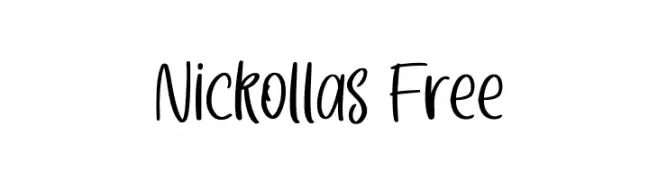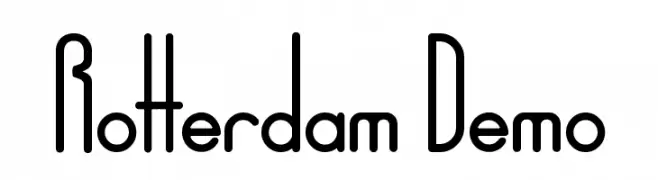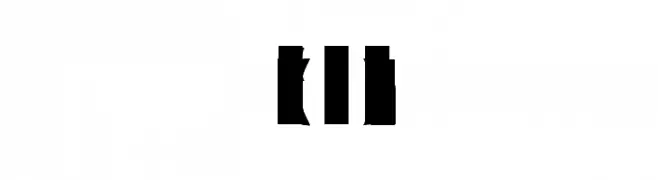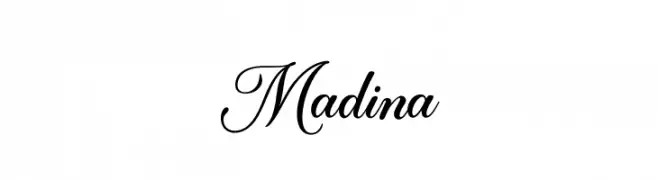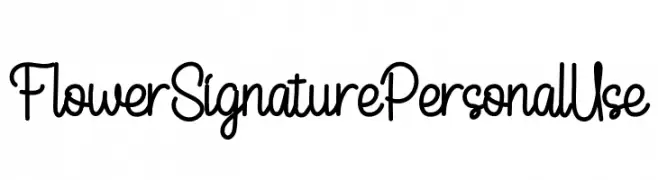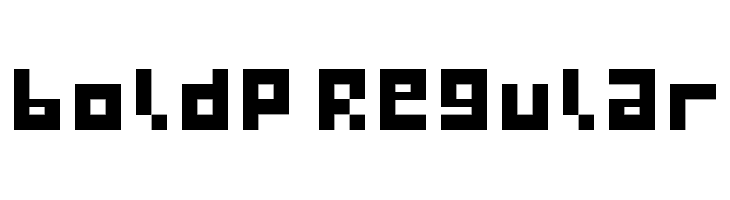
A playful, casual handwritten font with smooth, flowing lines.
A modern, geometric font with tall, narrow uppercase letters and balanced lowercase characters.
A futuristic, hollow font with a geometric and linear design.
A dot matrix style font with a modern, digital aesthetic.
A bold, geometric font with a modern and minimalistic design.
A sophisticated script font with elegant loops and swashes, perfect for decorative uses.
A bold, decorative font with intricate patterns and a three-dimensional effect.
A playful, elegant handwritten font with smooth, flowing curves.
A playful, bold font with a hand-drawn, comic-like style.
A playful, casual handwritten font with rounded, smooth letterforms.